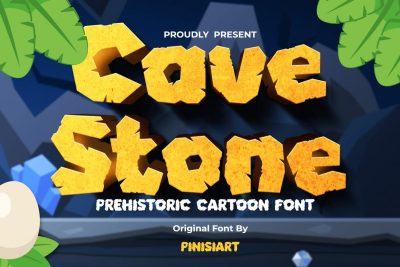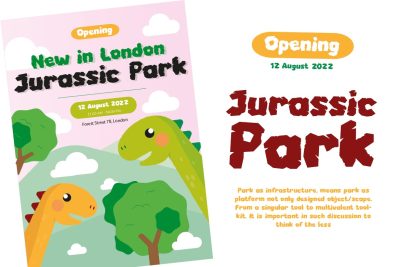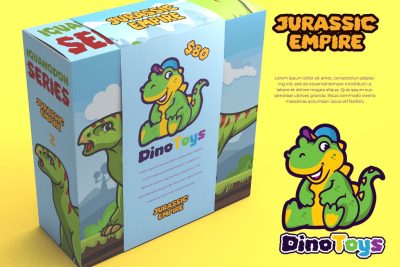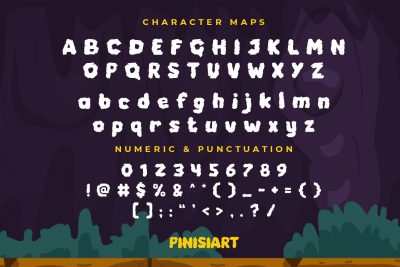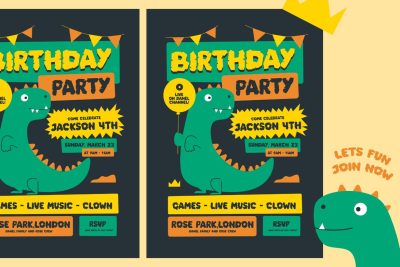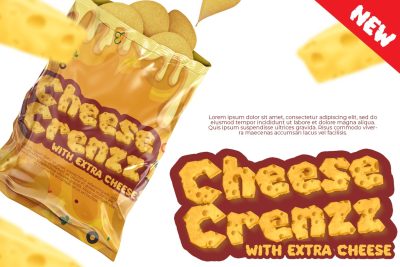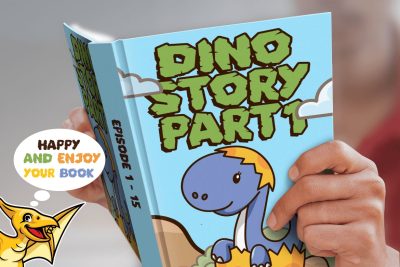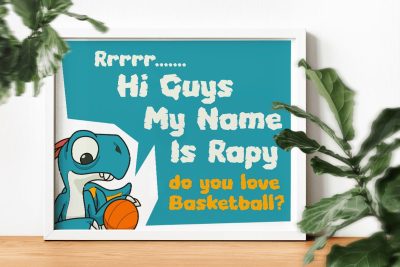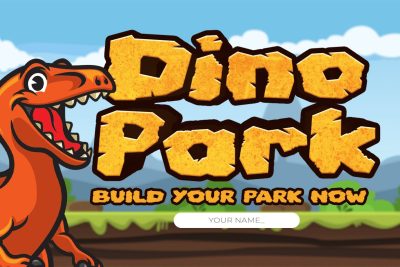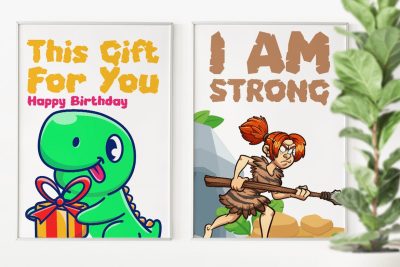
Gaming Font cave stone
Cave Stone
Gaming Font Cave Stone is a bold and rugged typeface inspired by prehistoric aesthetics. With rough textures and chunky, hand-carved letterforms, it exudes a raw, primal energy. Therefore, it is ideal for gaming titles, cartoons, and adventure-themed projects. Whether you’re working on branding, game design, or promotional materials, this font transports your audience to the Stone Age while adding a playful yet powerful visual touch.
Furthermore, Gaming Font Cave Stone offers excellent readability, making it suitable for both digital and print uses. Its distinctive design not only grabs attention but also adds character to any project. For instance, you can use it for game logos, posters, or animated titles to enhance your designs in a dynamic and creative way. The combination of its rugged appearance and readability ensures that it stands out without compromising clarity.
Gaming Font Cave Stone Perfect for Gaming, Branding, and Creative Designs
The font is specifically tailored to meet the needs of designers in the gaming and creative industries. Its bold, textured design works perfectly for adventure themes, prehistoric cartoons, or interactive gaming interfaces. In addition, its versatile structure ensures compatibility with various formats, from small-screen mobile apps to large-scale banners.
Moreover, the font’s primitive yet modern aesthetic makes it an excellent choice for projects that demand attention. For example, it’s ideal for children’s apps, prehistoric-themed events, or creative merchandise. Its raw, hand-crafted style not only adds a playful edge but also maintains a bold and impactful presence. Designers can also experiment with layering and color treatments to maximize its visual impact.
Finally, this unique typeface helps set your designs apart from the competition. Its charm lies in its ability to blend storytelling with visual impact. Whether you’re designing for action-packed games, promotional campaigns, or kid-friendly entertainment, Cave Stone provides the creative edge your projects need. Additionally, its timeless appeal makes it a great investment for any creative toolkit. By incorporating this font, you ensure your designs are not only eye-catching but also memorable.
It looks like from a prehistoric era, where dinosaurs, mammoths, and all that giant animals still roaming the ice world. Cave Stone bring all those memories come back to life.